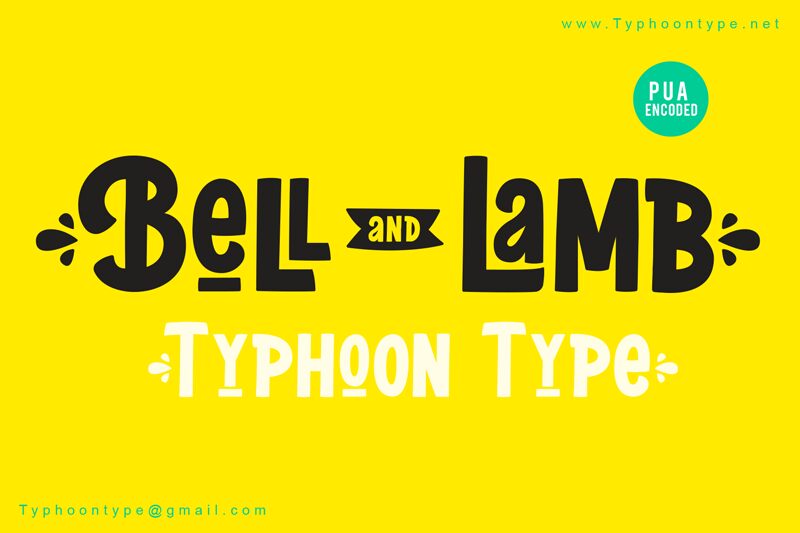
Bell and Lamb font is a bold display typeface designed by Typhoon Type - Suthi Srisopha.
1. Type ( before a word to get beginning splash and Type ) afterword to get the ending splash.
2. Type > "greater sign" to get small "AND"
Example : (Bell>Lamb)